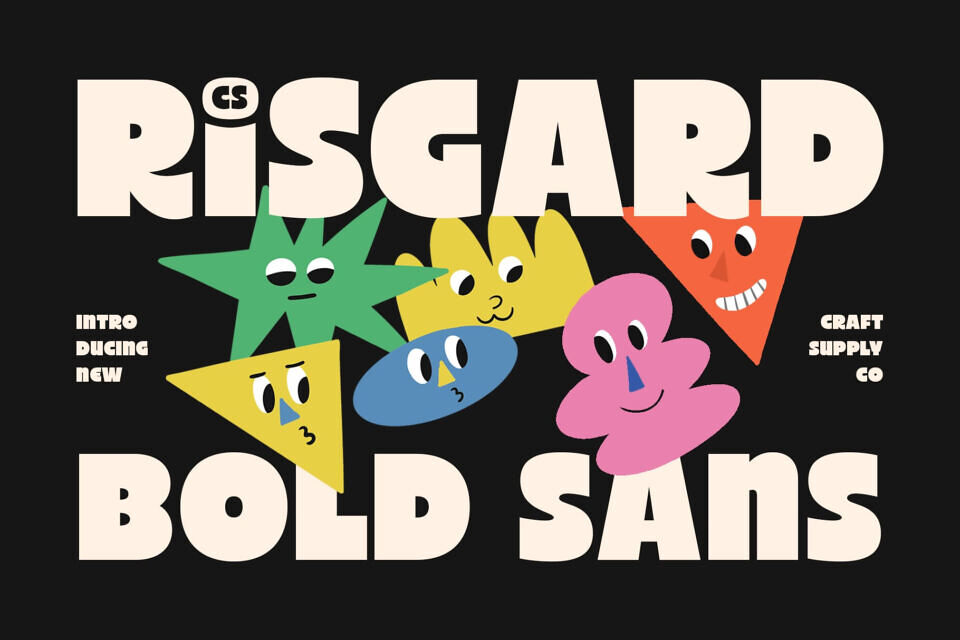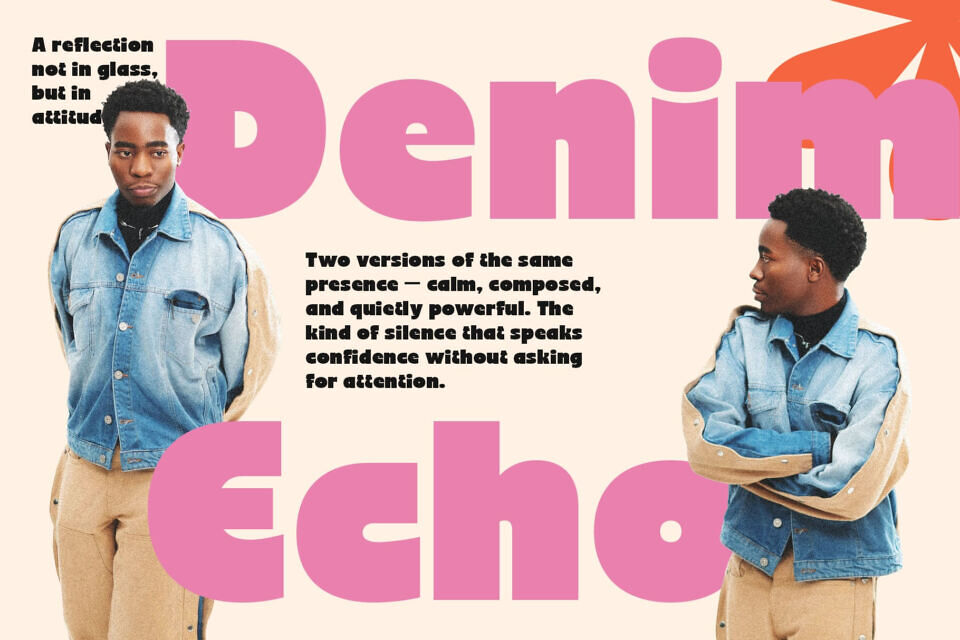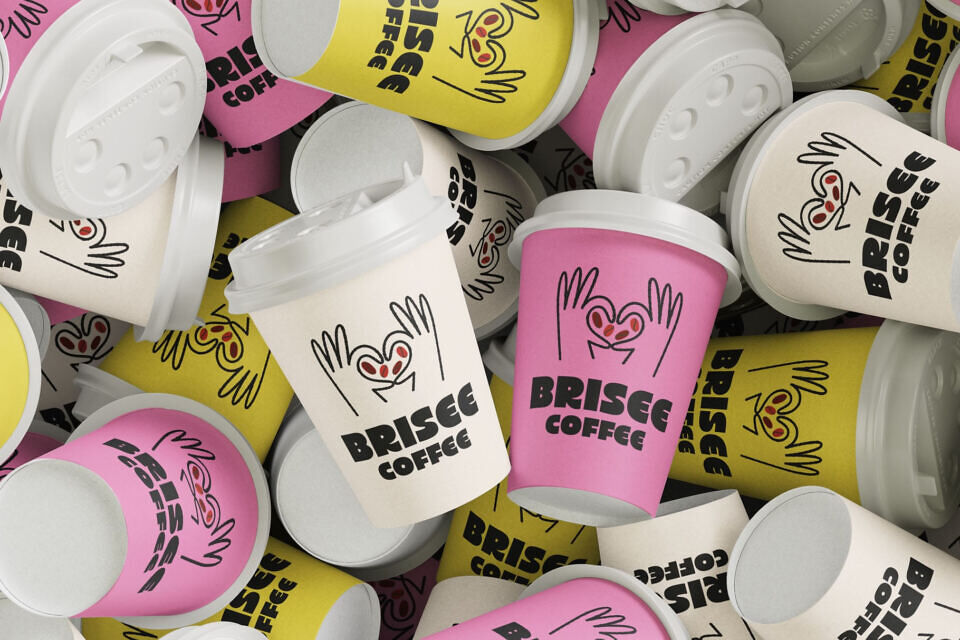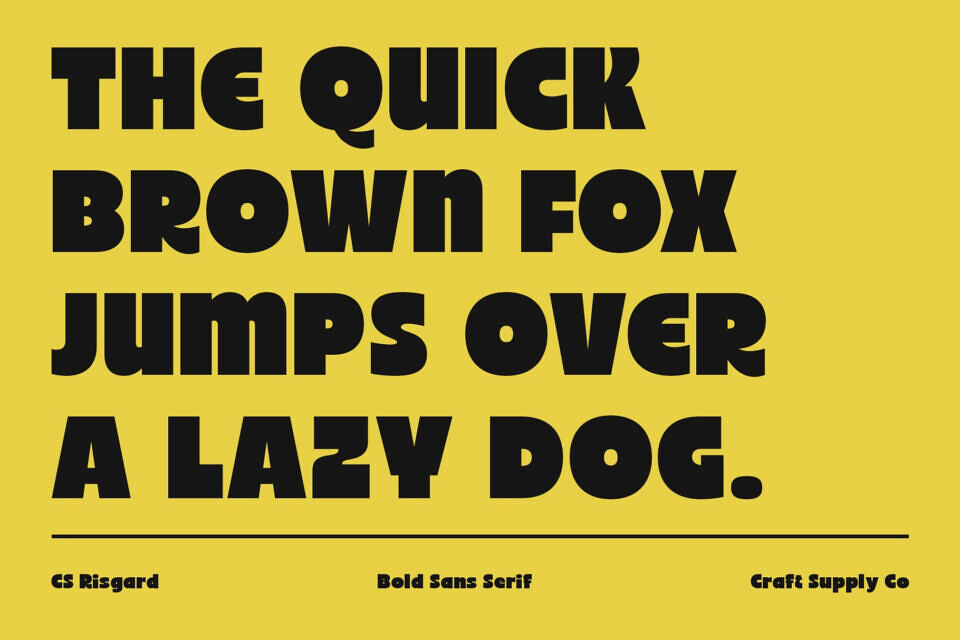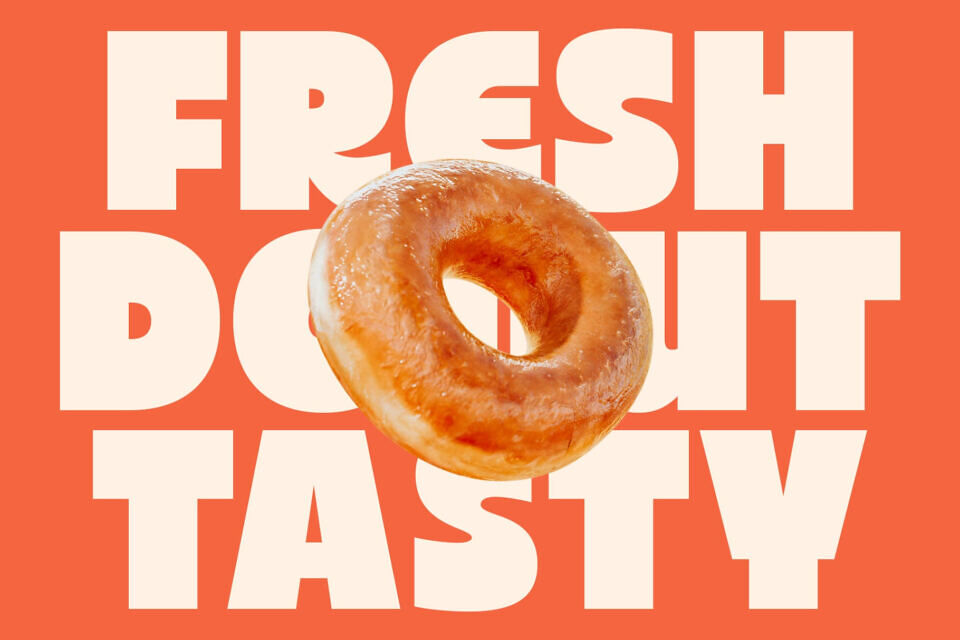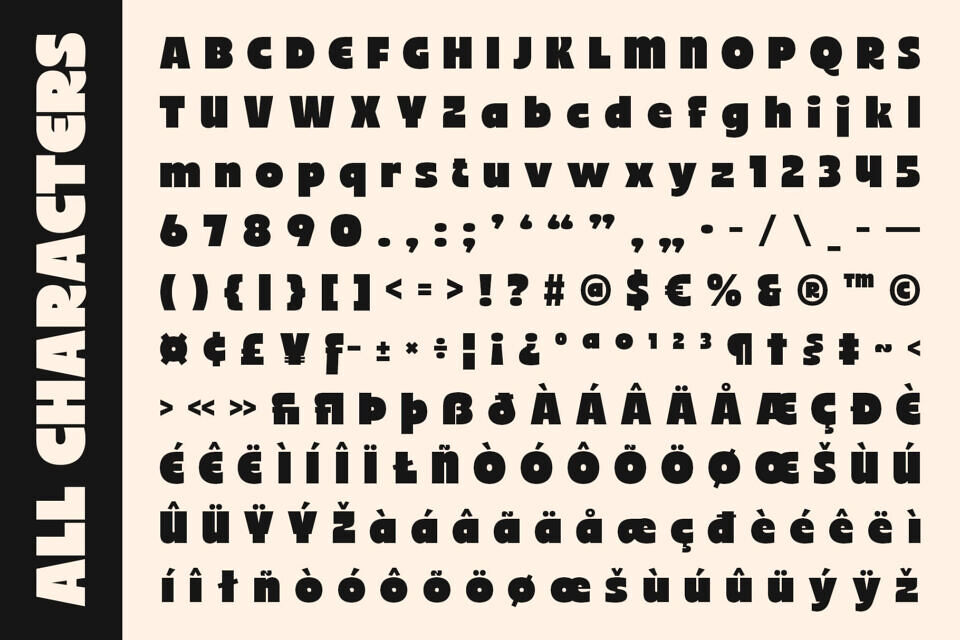
Risgard is a modern sans serif font defined by its bold, clean, and confident forms. Each letter is crafted with precision, creating a sense of balance and impact that commands attention. Designed to stand out, this typeface embodies modern energy and visual strength perfect for designers seeking a powerful, contemporary look.
What sets this font apart is its funky and unique twist. Subtle design quirks give the font personality and movement, making it far more than a standard sans serif. This blend of structure and spontaneity adds a playful yet polished feel, ideal for projects that want to look creative and distinctive.
Whether used in logos, posters, packaging, or modern branding, this font delivers instant visual impact. Its legibility and geometric confidence make it suitable for both digital and print use, while its expressive details bring individuality to every word.